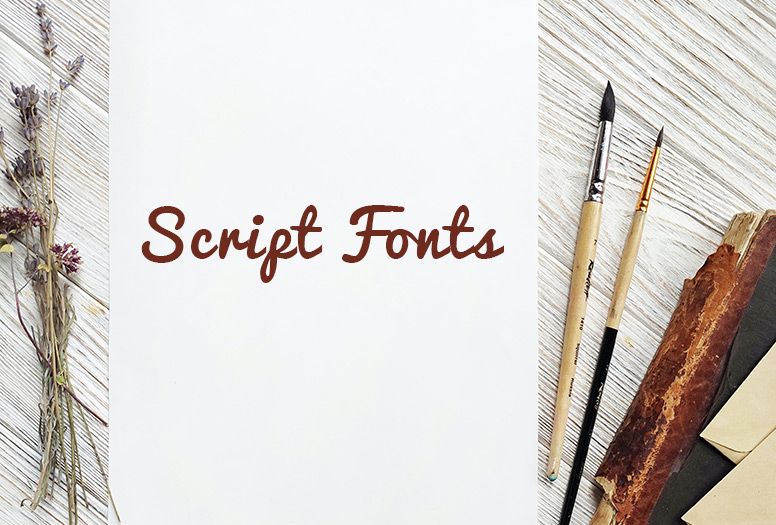
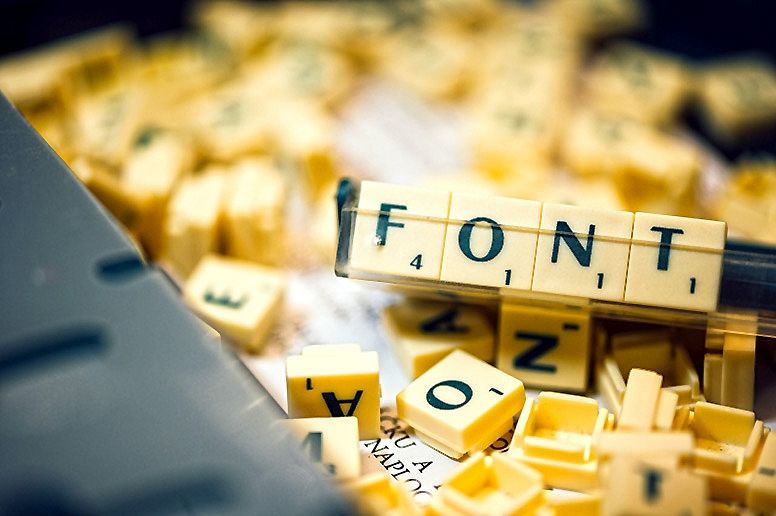
Fonts are an essential element of any design. They can convey mood, emotion, and tone, making them an integral part of any branding, advertising, or marketing campaign. However, finding the perfect font can be a daunting task, especially when you're on a tight budget. Fortunately, there are plenty of high-quality free fonts available online. Take a look at some of the best free fonts that you can use in your designs.
Serif Fonts: Serif fonts are characterized by small lines or flourishes on the edges of the letters. They are often used for traditional and formal designs, as they convey a sense of elegance and sophistication.
Sans-serif Fonts: Sans-serif fonts are clean and modern, without the small lines or flourishes of serif fonts. They are often used for more contemporary and minimalist designs, as they convey a sense of simplicity and clarity.
Display Fonts: Display fonts are bold and attention-grabbing, designed for use in large headlines and titles. They are often used for advertisements, posters, and other designs that need to make a strong visual impact.
Script Fonts: Script fonts are characterized by their flowing, cursive lettering. They are often seen as more playful and whimsical than serif or sans-serif fonts, making them an excellent choice for designs that need a touch of personality.
Handwritten Fonts: Handwritten fonts mimic the look of handwriting, with irregular lines and strokes. They are often used for designs that want to convey a sense of warmth and authenticity.
Decorative Fonts: Decorative fonts are unique and eye-catching, designed to add visual interest and personality to a design. They can range from quirky and whimsical to ornate and elegant fonts.
Monospaced Fonts: Monospaced fonts have equal spacing between each letter, making them ideal for use in programming or other applications where precise alignment is important.
Symbol Fonts: Symbol fonts are made up of symbols and icons rather than traditional letters and numbers. They are often used for logos and other designs that need to convey a specific message or meaning.
Foreign Language Fonts: Foreign language fonts are designed for use with non-Latin alphabets, such as Cyrillic, Arabic, or Chinese. They are essential for creating designs that are culturally sensitive and appropriate.
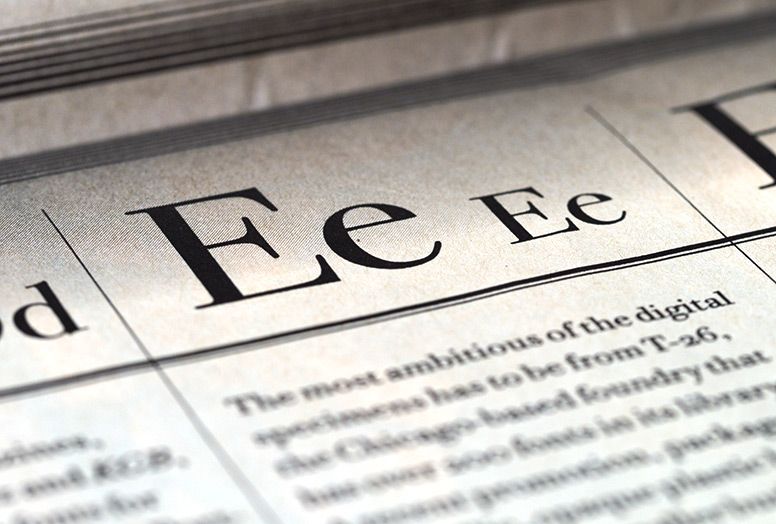
Serif fonts are characterized by the small lines or flourishes at the ends of the letter strokes. They are often seen as more traditional and formal than sans-serif fonts, making them an excellent choice for branding and editorial designs. Here are some of the best free serif fonts available:
Libre Baskerville is a classic serif font that's perfect for creating a vintage or elegant look. It's based on the American Type Founder's Baskerville from 1941, and it features a large x-height and open counters that make it easy to read.
Crimson Text is a serif font that was designed specifically for reading long-form content. It has a classic, old-style feel that's perfect for books, magazines, and other print materials. The font features sharp serifs and a generous x-height that make it easy to read in small sizes.
Lora is a serif font that was designed for web use. It has a modern appearance that's perfect for creating a professional, sophisticated look. The font features sharp serifs and generous spacing that make it easy to read on any screen.
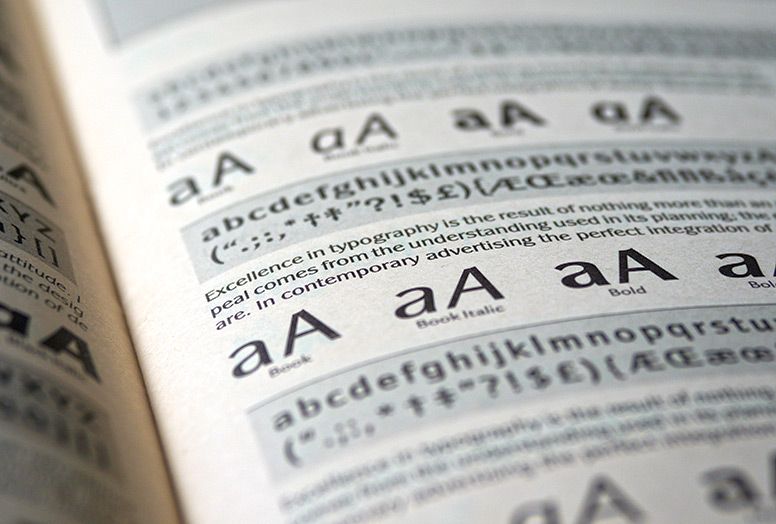
Sans-serif fonts are characterized by their clean, modern lines and lack of serifs. They are often seen as more contemporary and casual than serif fonts, making them an excellent choice for digital designs. Here are some of the best free sans-serif fonts available:
Montserrat is a versatile sans-serif font that's perfect for a wide range of designs. It's based on the signage found in the Montserrat neighbourhood of Buenos Aires and features clean lines and a modern, geometric feel.
Open Sans is a popular sans-serif font that's widely used on the web. It has a clean, modern look that's perfect for creating a professional, sophisticated look. The font features generous spacing and a large x-height that make it easy to read on any screen.
Raleway is a sans-serif font that was designed for use in headlines and large text blocks. It has a unique, geometric feel that's perfect for creating a modern, sophisticated look. The font features thin lines and sharp edges that make it stand out in any design.
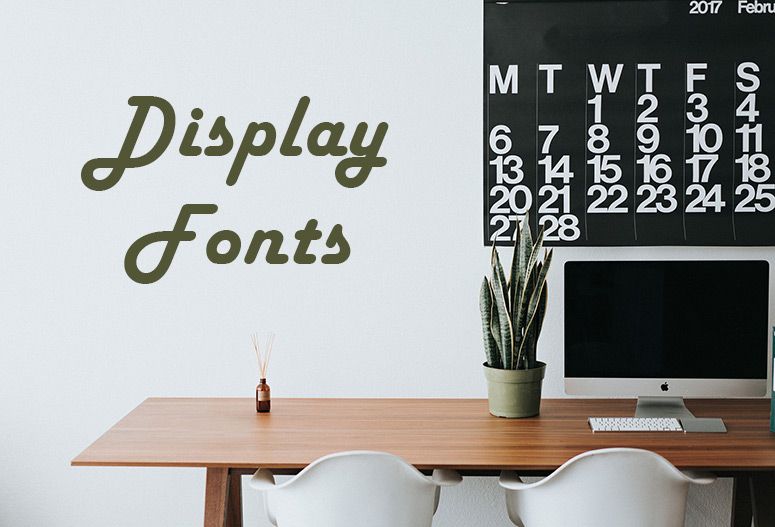
When choosing a font, it's important to consider factors like readability, style, and brand identity. Make sure the font you choose is easy to read, appropriate for your design style, and consistent with your brand messaging. With the right font, you can create designs that are memorable, effective, and visually stunning.